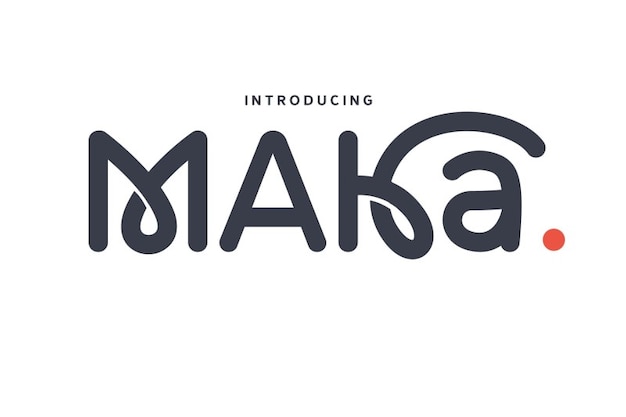
Maka
Maka Font
Drizy Studio
Maka Font is the epitome of modernity in typography. Its sleek, contemporary design exudes a creative and artistic vibe, making it perfect for innovative projects. The font's decorative elements add a touch of uniqueness and creativity, ensuring your text stands out. This font is a versatile choice, ideal for web design, branding, or any creative endeavor. Whether you're aiming for a professional and modern look or a playful and artsy one, Maka's rounded, decorative style has got you covered.